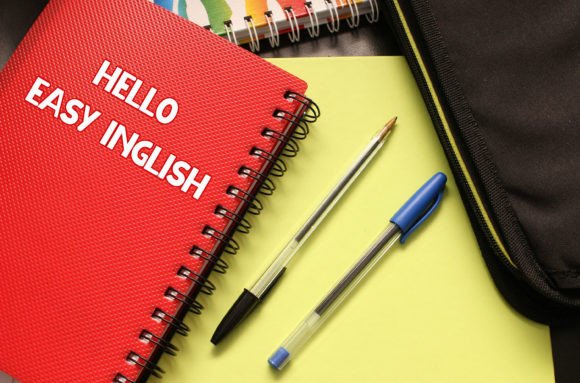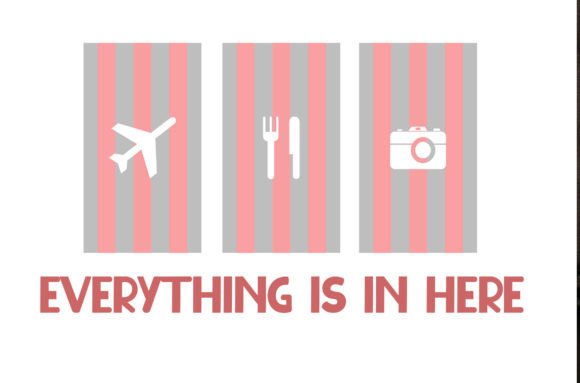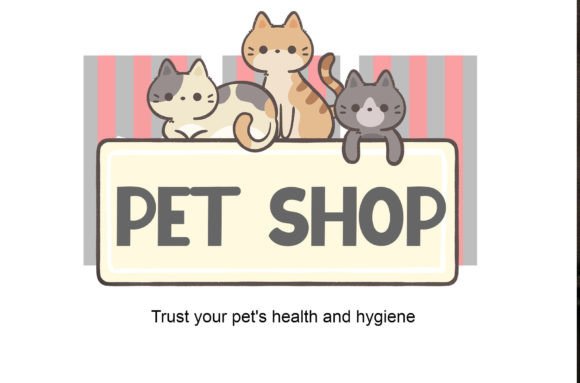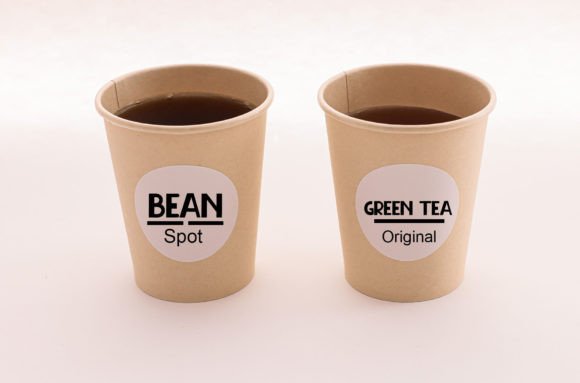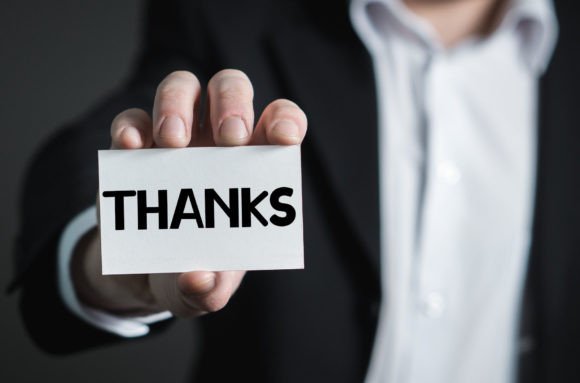
Happy House Font
About Happy House Font
Happy House is a delightful and natural handwritten font that brings a fresh and authentic touch to a variety of design applications. Whether you’re working on crafts, digital design, presentations, or creating greeting cards, Happy House stands out as a versatile and charming font that can easily become your favorite go-to choice, regardless of the occasion.
The natural strokes and handcrafted feel of Happy House make it suitable for a range of projects. Its versatility allows it to adapt seamlessly to different design contexts, adding a touch of authenticity and warmth. Whether you’re creating digital designs for online platforms or personalized greeting cards for special occasions, Happy House contributes to a friendly and approachable aesthetic.
This font’s adaptability extends to presentations, where its natural and fresh appearance can make information more engaging and relatable. The handcrafted quality of Happy House brings a personal touch to the content, making it more visually appealing and memorable.
Happy House is not just a font; it’s a design companion that complements various creative endeavors. Its charm lies in its simplicity and natural flow, making it a font that resonates with authenticity. Whether used in a digital format or on printed materials, Happy House has the potential to become a favorite font for designers who appreciate its versatile and friendly character.